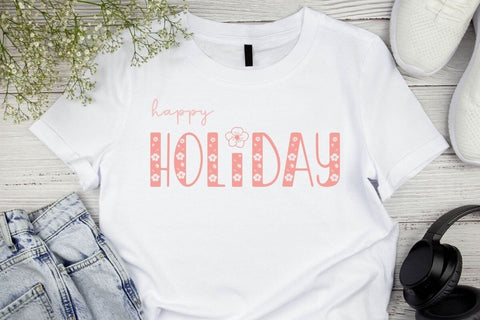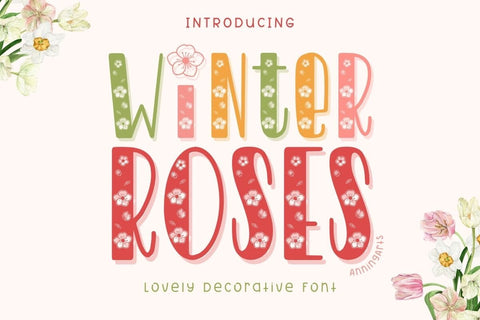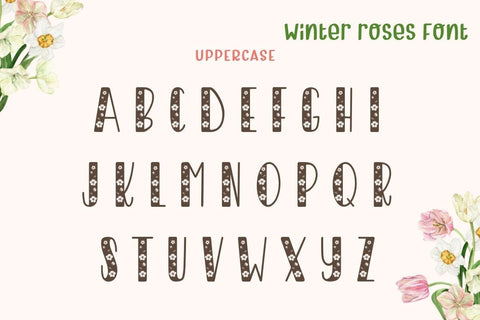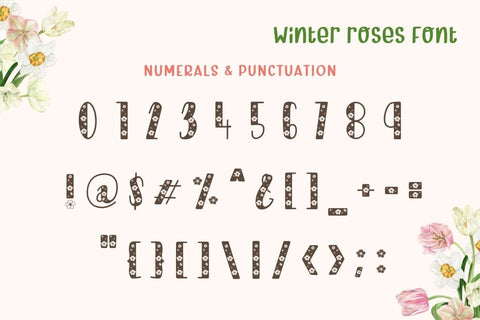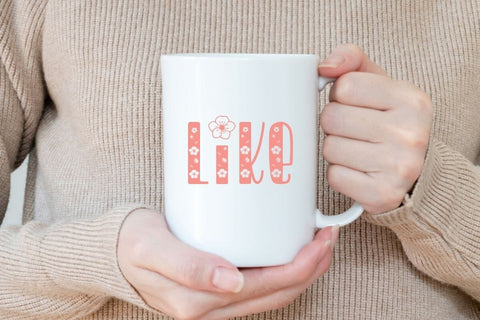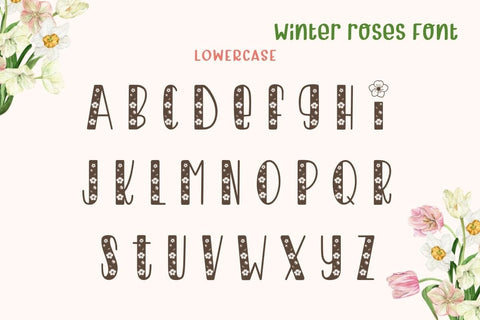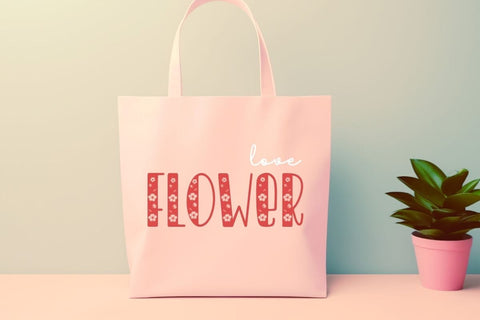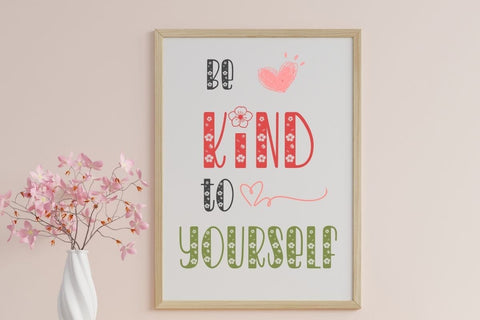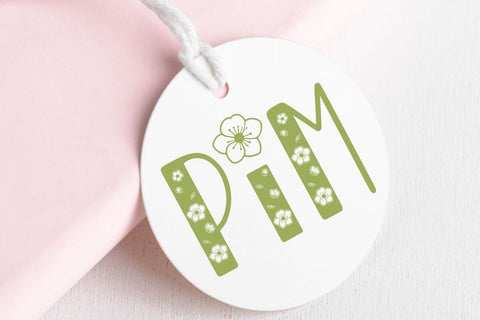
Winter Roses - Decorative Font
Winter Roses font is a delightful, vibrant typeface decorated with charming hellebore flowers. This font is perfect for projects that require beauty and a touch of nature, such as invitation cards, poster designs, or product packaging that needs a boost of cheerfulness and cuteness. Winter Roses font adds charm and makes your text stand out with its unique and captivating style.